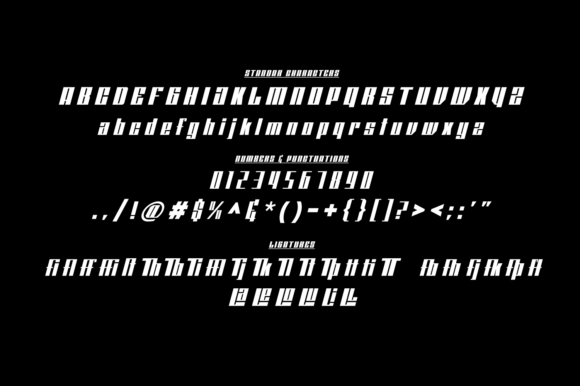
Mane Font
Mane is a modern and techno looking display font. It is the perfect font for any sport or racing-themed project, such as logos, posters, games, product designs and much more.